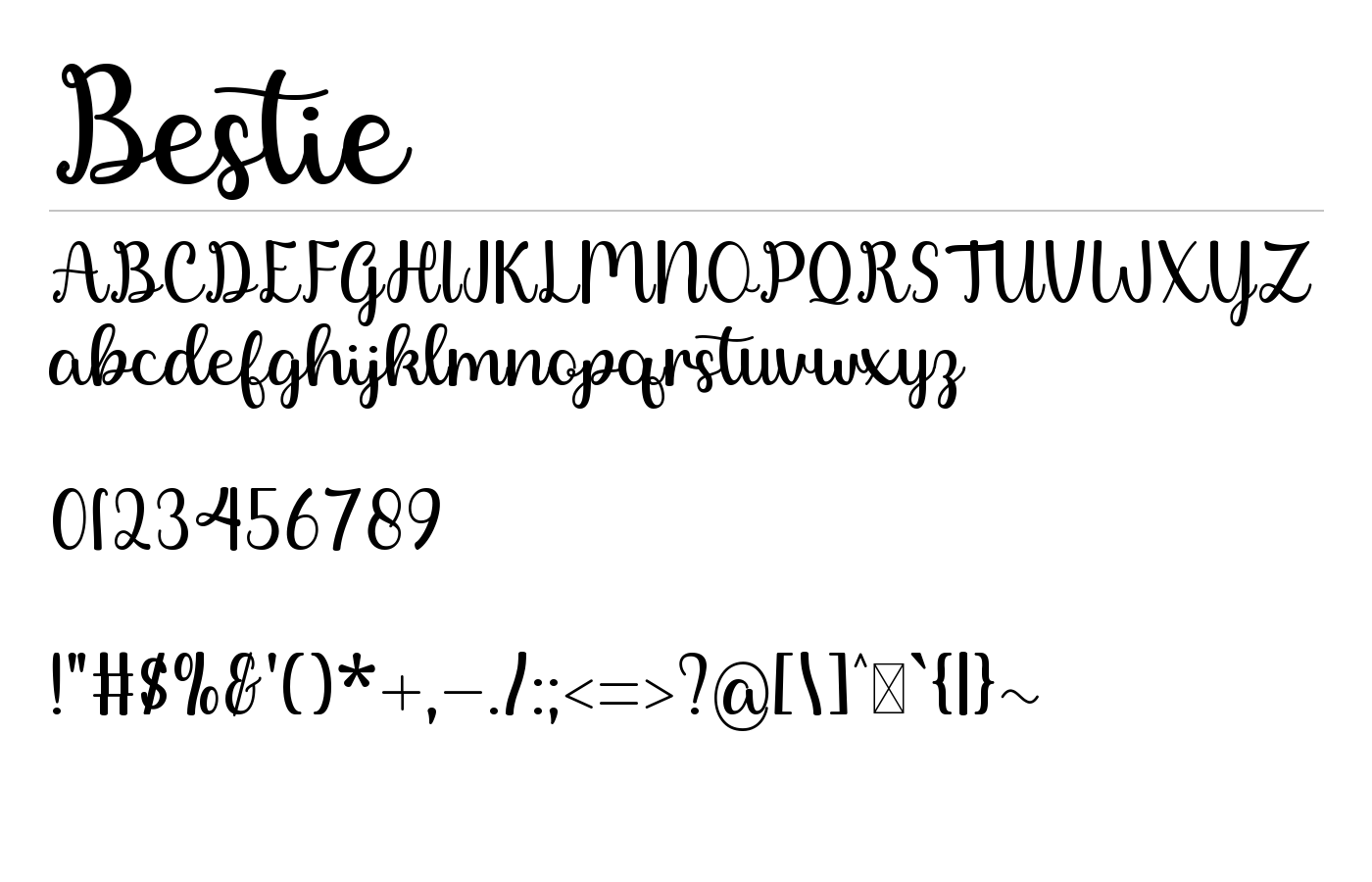
Bestie Font is a playful and charming script typeface with a casual, handwritten feel. Its smooth, flowing strokes and rounded letterforms give it a friendly and approachable personality, making it ideal for creative projects, invitations, branding, and editorial designs that seek a warm, personal touch. This font works particularly well in headlines, logos, and packaging where a youthful and joyful vibe is desired.
Bestie Font
About Bestie Font